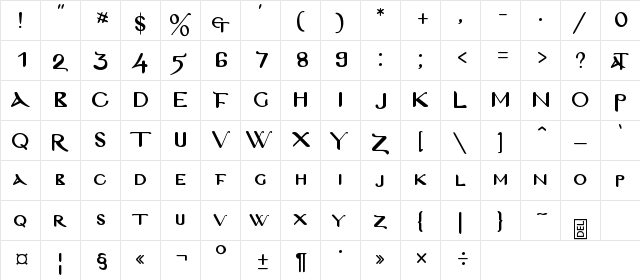
Analecta Regular Font Preview
Analecta Regular
Analecta Regular Font Details
| Designer | George Douros |
Design Context for Analecta Typeface
Analecta is a composed and adaptable typeface that performs quietly and consistently across a wide range of design contexts.